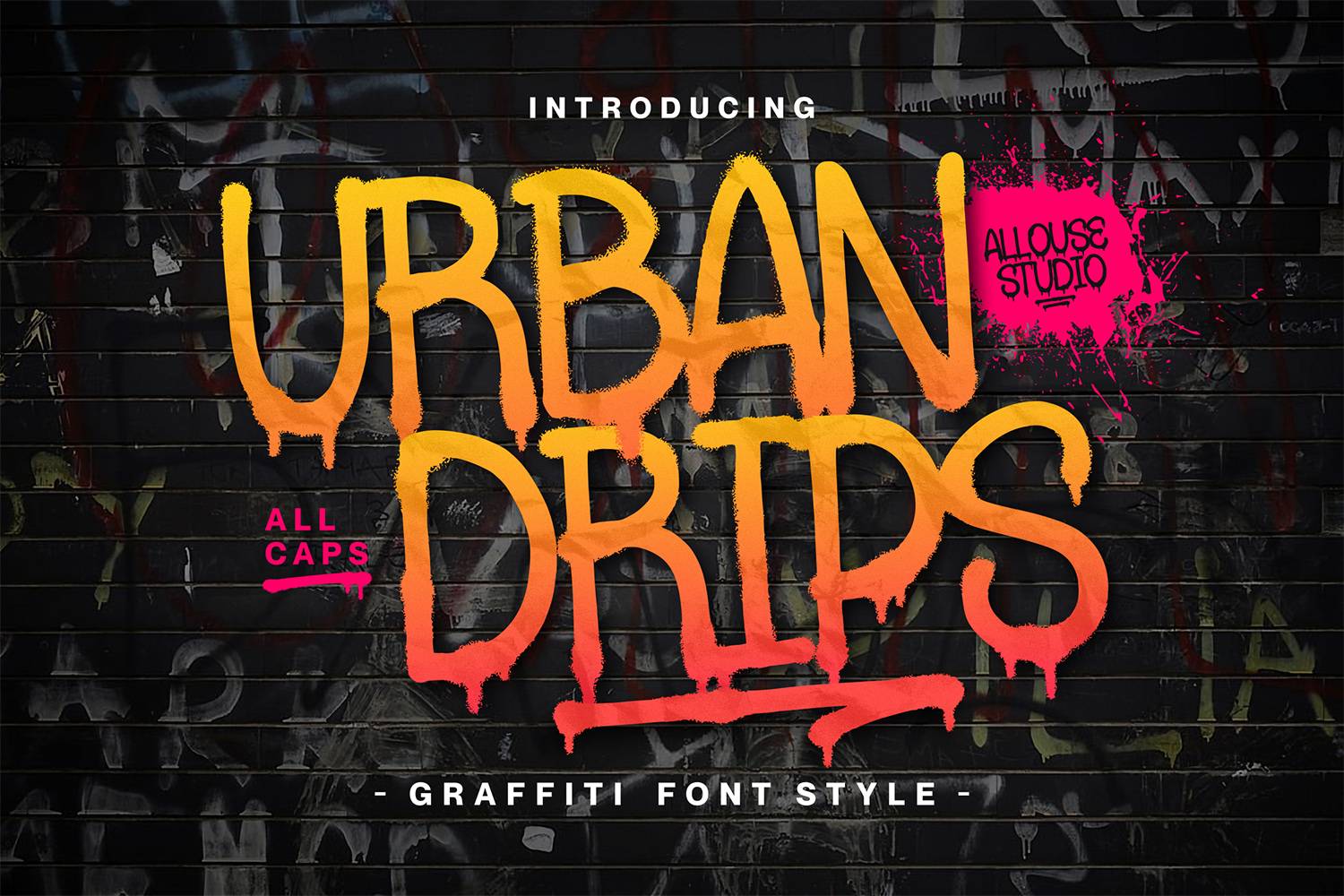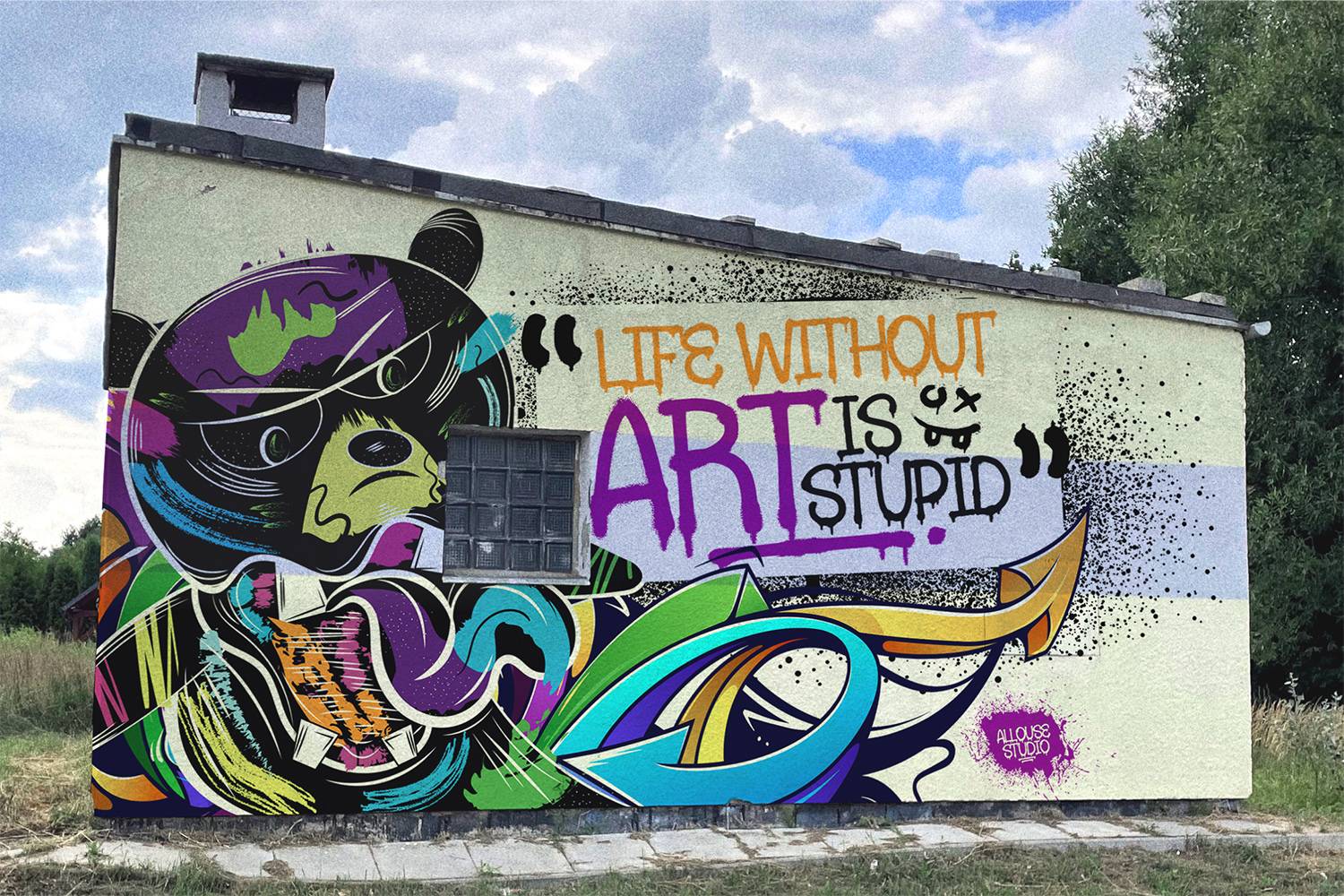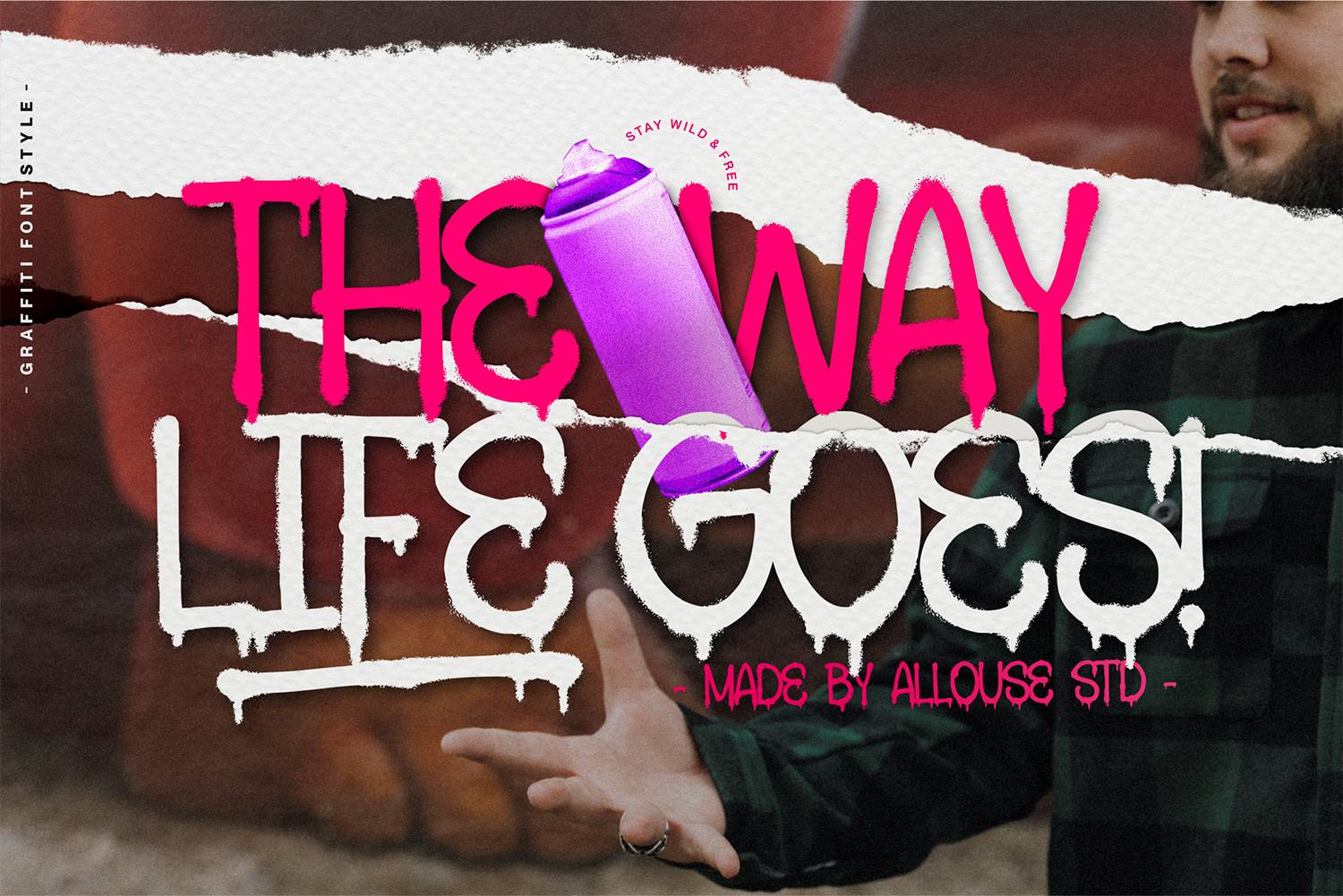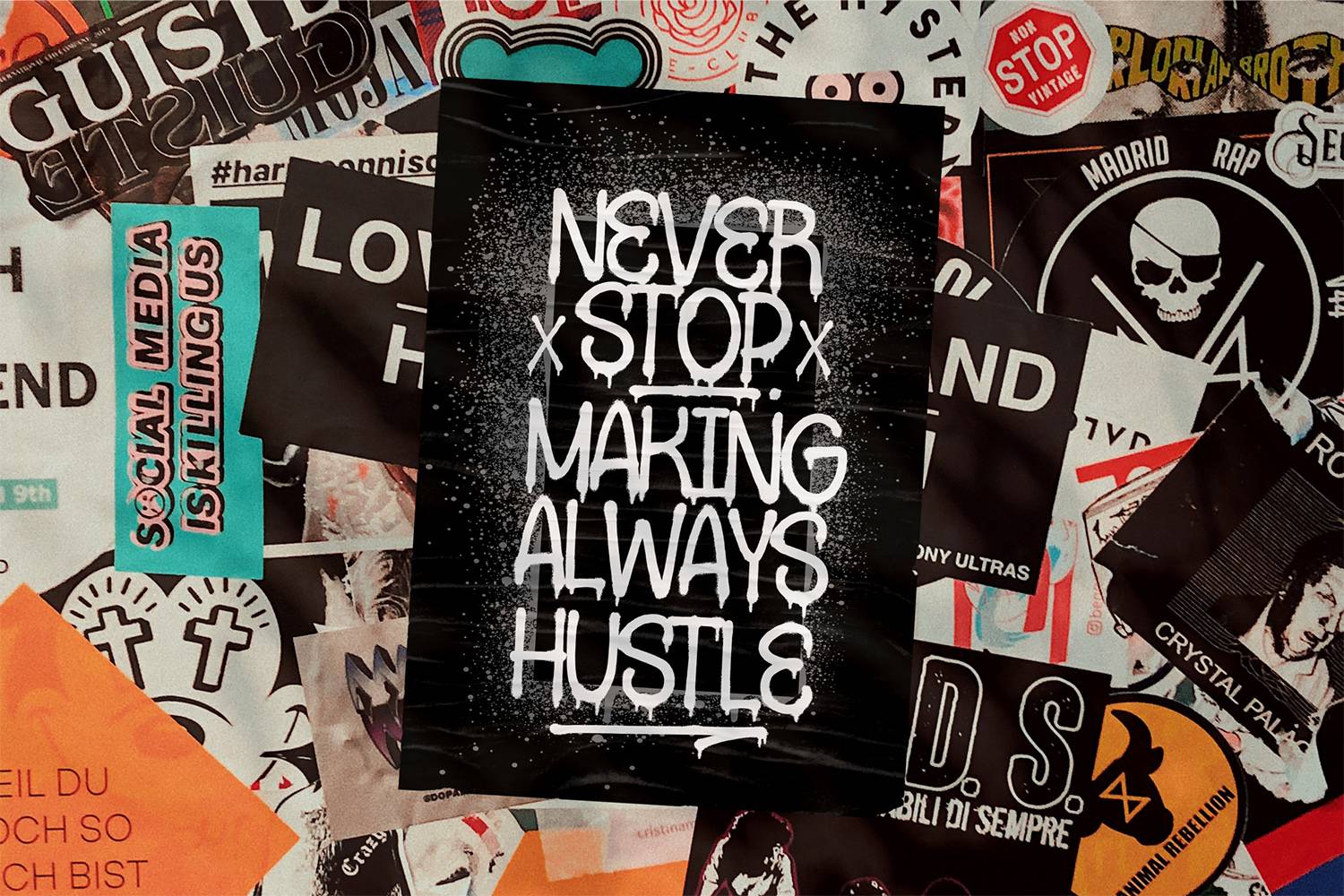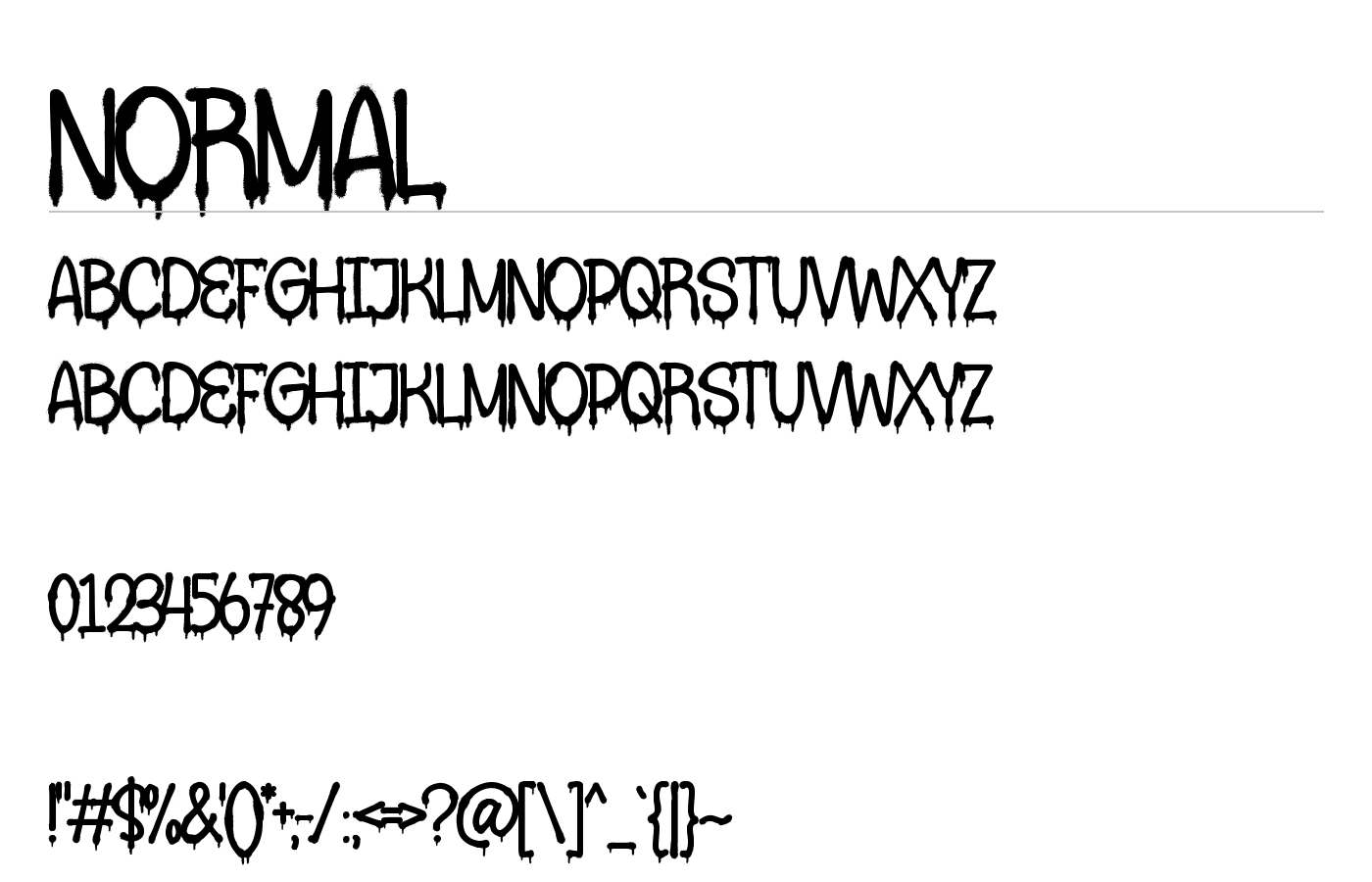
Urbandrips is a bold, distressed sans serif font with a gritty, urban feel, characterized by uneven strokes and drip-like effects that create a hand-crafted, graffiti-inspired look. Its tall, narrow letterforms and irregular edges give it a raw, edgy personality perfect for street art, music posters, or edgy branding. This font works best in display settings where its unique style can stand out and inject a rebellious, dynamic vibe.
Urbandrips Font
About Urbandrips Font